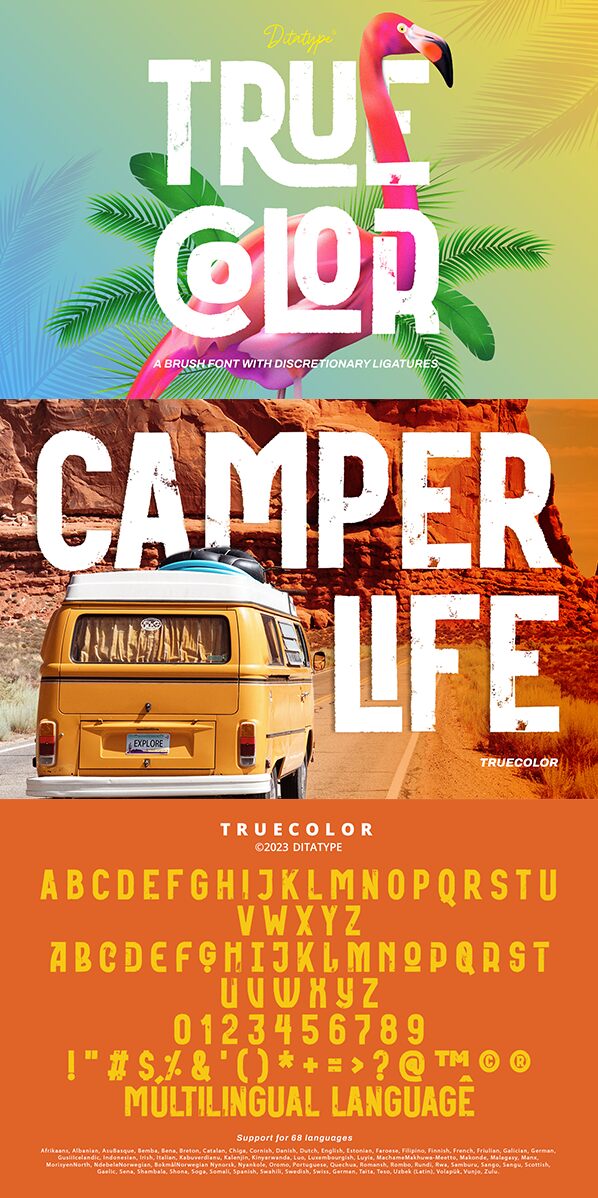
Truecolor font is a condensed eroded display typeface by Ditatype with a distinctive grungy texture. This distressed appearance gives it an industrial feel that combines a touch of vintage influence with the bold impact of modern fonts. If you’re working on designs in these directions, then this font could be the perfect fit for your project.
Use this free display font for logo and packaging design, T-shirt designs, website elements, or any digital or print design that would benefit from characterful typography. Use in magazine covers, CD/album covers, book covers, poster designs and many more creative projects to achieve your desired results.